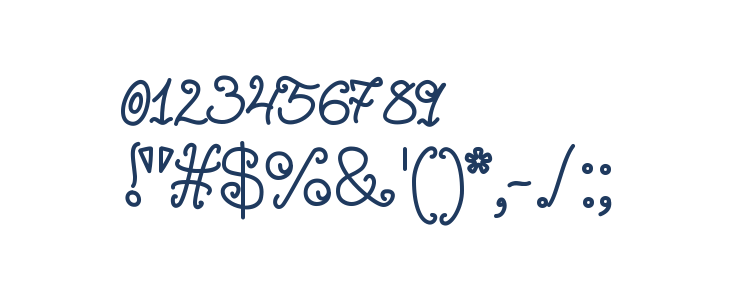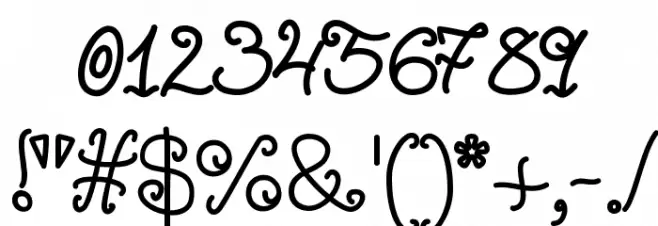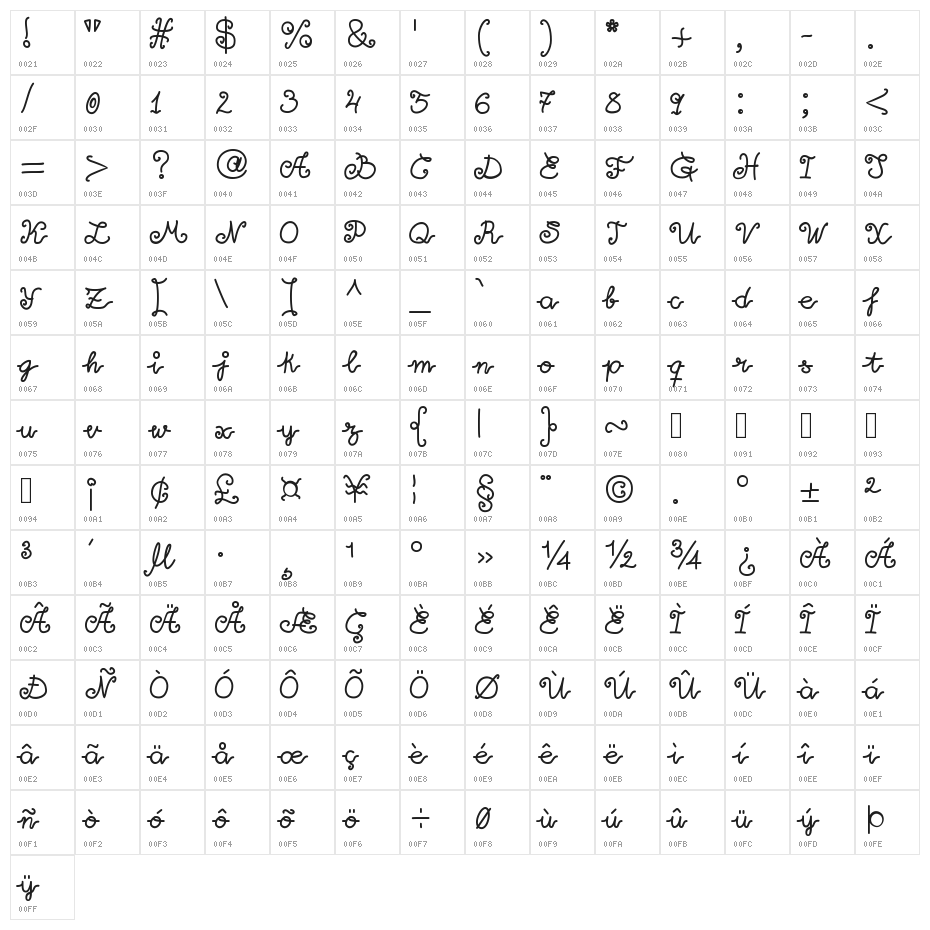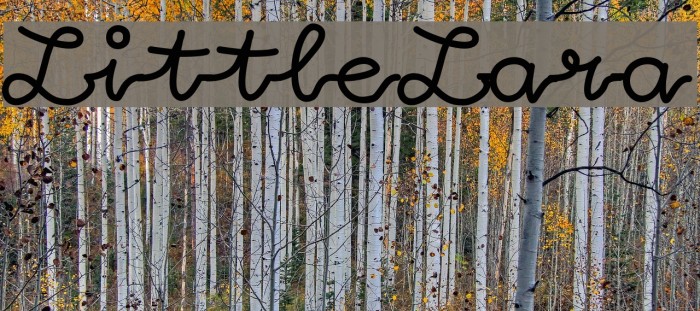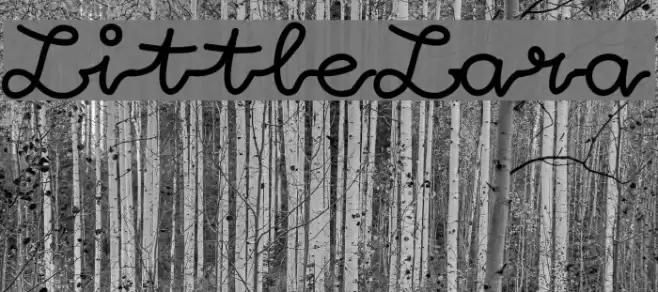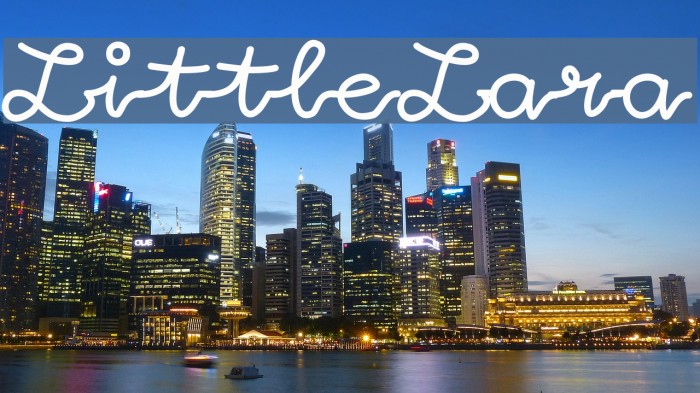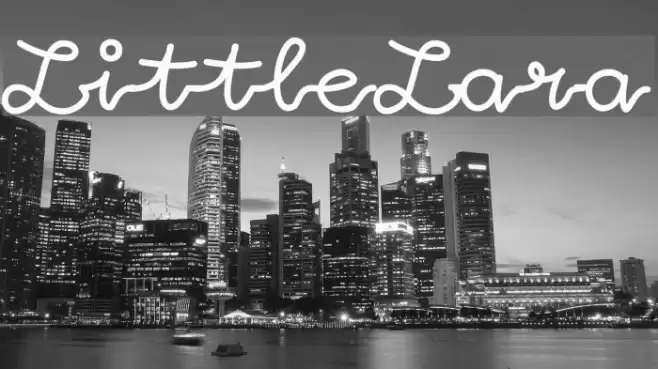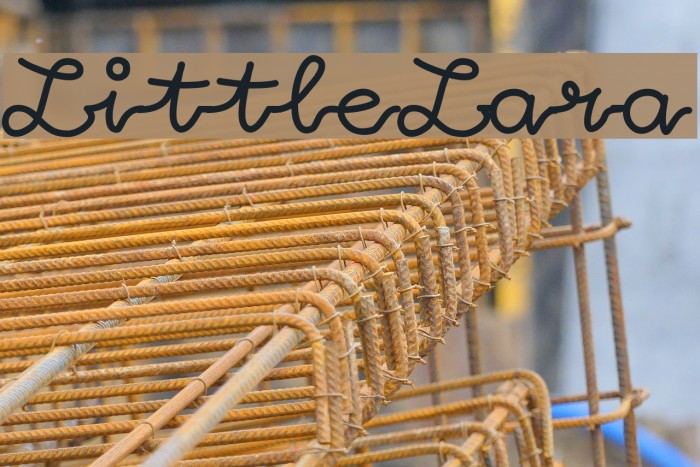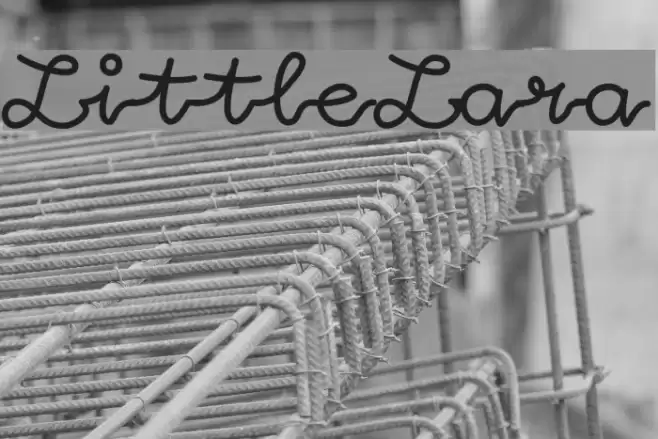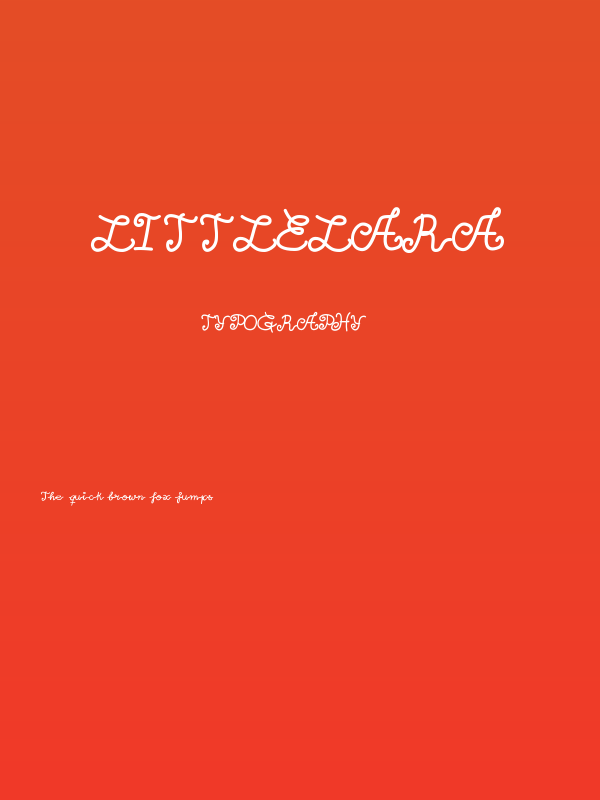
LittleLara Font
LittleLara Description
This font features a whimsical and playful design, characterized by its curly and looping strokes. The uppercase letters are adorned with decorative swirls, giving them a lively and animated appearance. The lowercase letters maintain a consistent style, with smooth curves and a slightly informal feel. Numbers and special characters are crafted with the same playful aesthetic, ensuring a cohesive look across all elements. The overall design exudes a sense of fun and creativity, making it suitable for projects that aim to capture attention with a lighthearted and artistic touch.
| Proposed Projects | Ideal for children's books, playful branding, greeting cards, and creative invitations. |